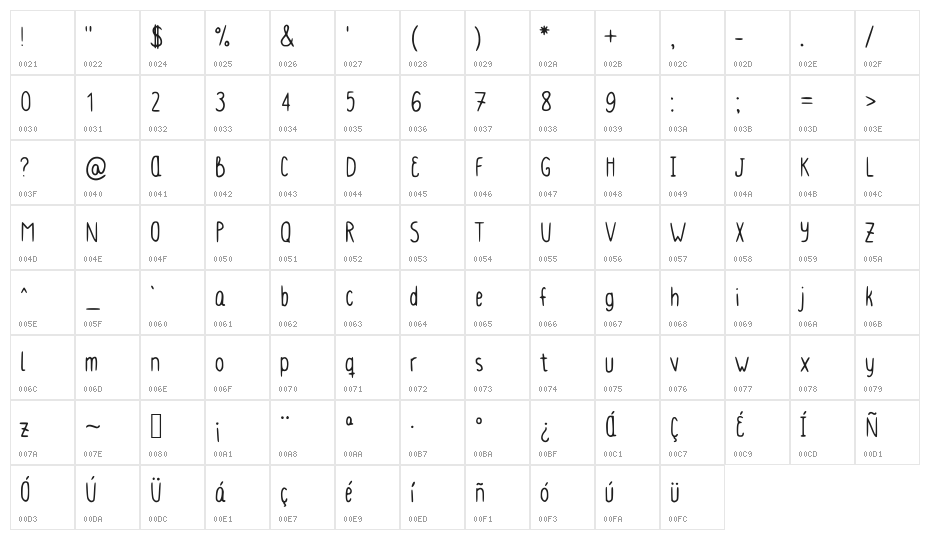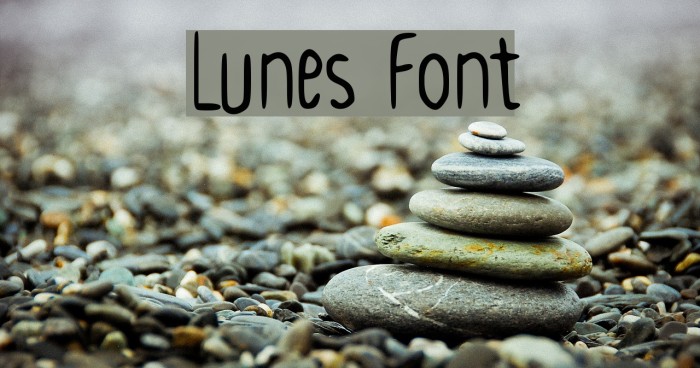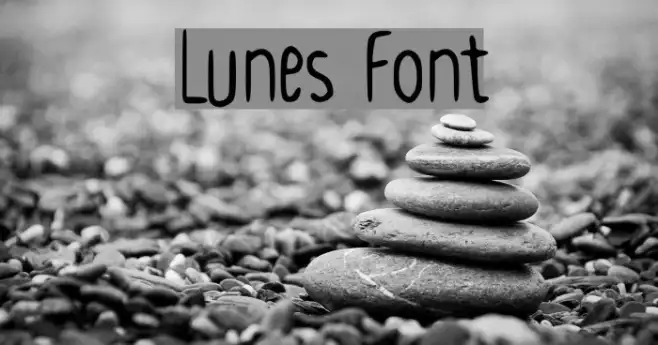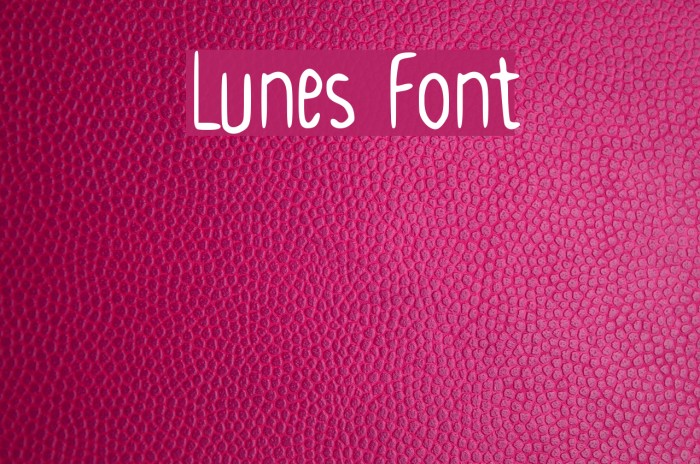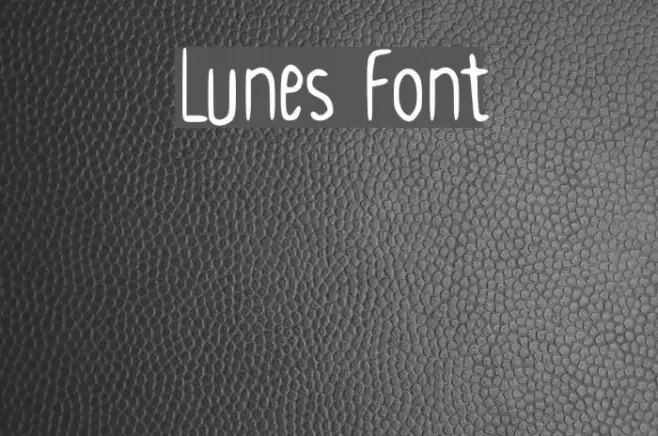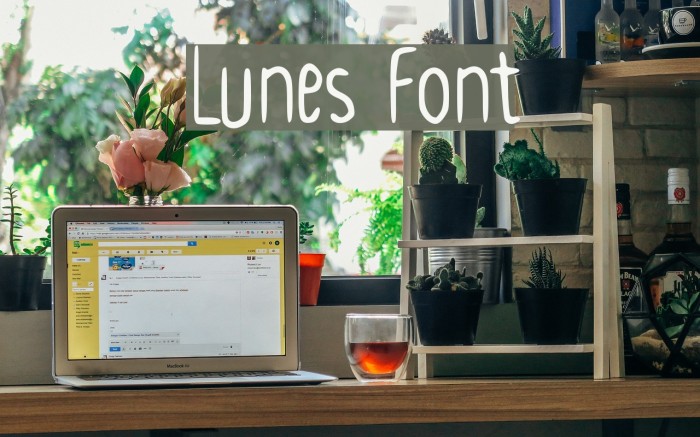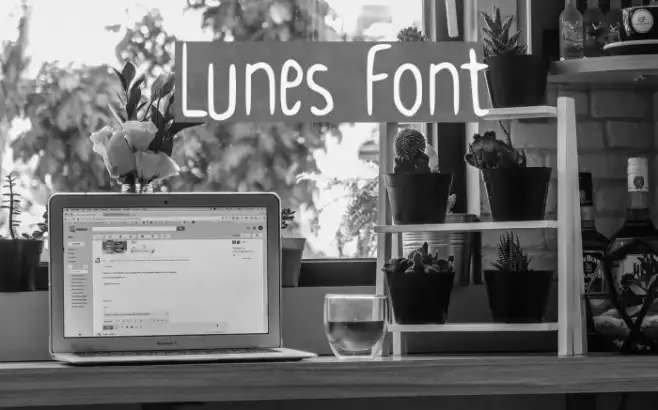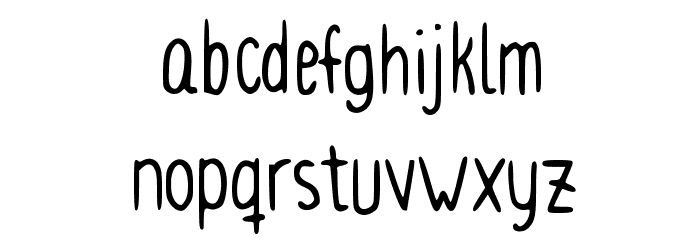
Lunes Font
Lunes Description
This font features a playful and casual handwritten style, characterized by its rounded edges and slightly irregular letterforms. The uppercase letters maintain a consistent height, while the lowercase letters exhibit a friendly and approachable appearance. The numerals are clear and easy to read, matching the overall informal tone of the alphabet. Special characters are designed to complement the playful nature of the font, making it suitable for creative and informal projects. The font's unique style adds a touch of personality and warmth to any design.
| Proposed Projects | Ideal for greeting cards, children's books, casual branding, and social media graphics. |